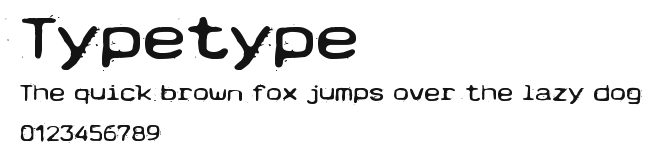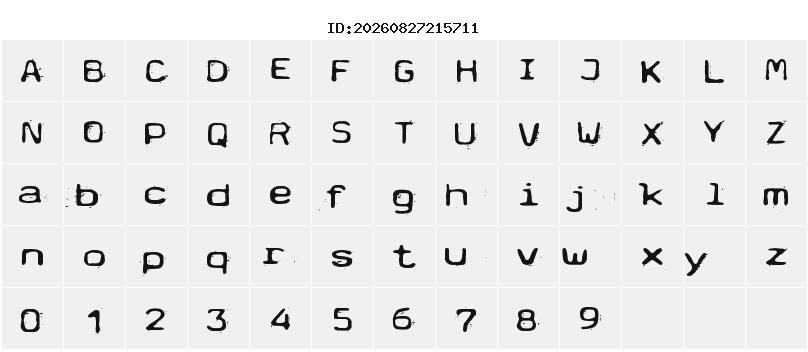
• Font Name: Typetype
• Full Font Name: Typetype
About Typetype.ttf
Typetype.ttf is a modern, elegant sans-serif font designed for ultimate readability and visual harmony. Perfect for branding, headlines, web design, and print materials.